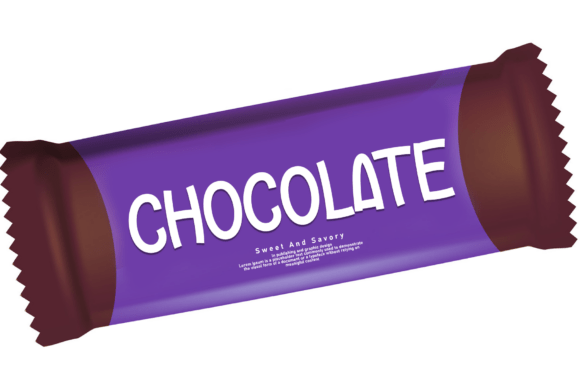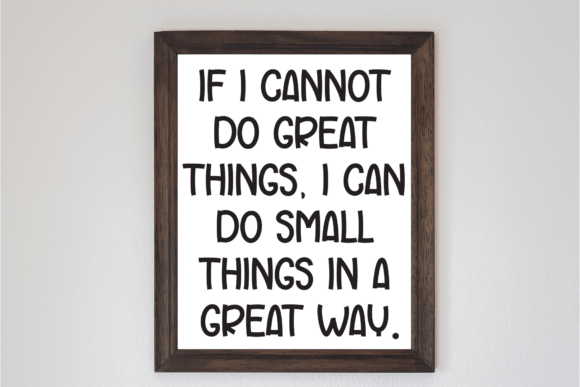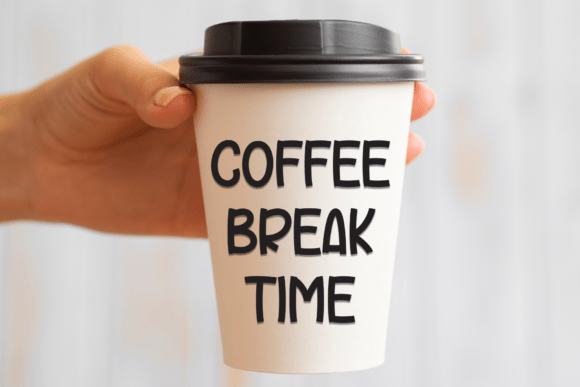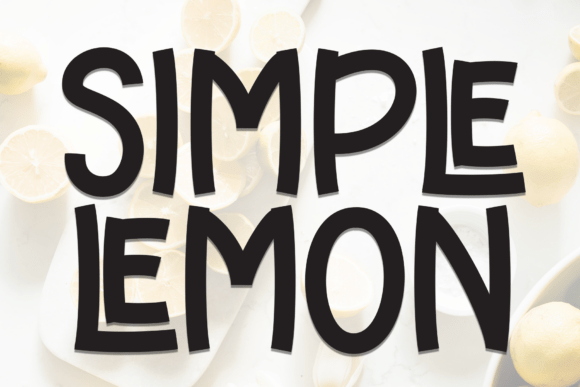
Introduction to Simple Lemon Font
Introducing the charming appeal of a personal touch, this intricately handwritten display font adds a delightful pop to your design projects.
Evoking a sweet yet friendly aura, this font showcases versatility at its finest – perfect for scribbling wedding invitations, crafting cards, or injecting a dose of fun into any creative project Experience the joy of handwritten authenticity with emboldening charisma that breathes life into every word.
Why Choose Simple Lemon Font?
Simple Lemon Font offers exceptional quality and versatility, making it a valuable addition to your design toolkit. Whether you’re creating for personal projects or commercial use, Simple Lemon Font delivers professional results.